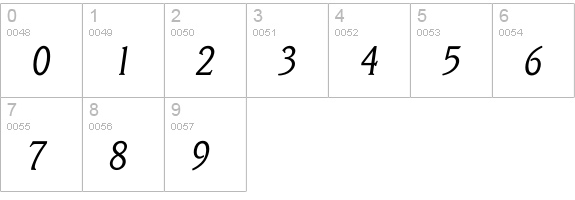
Iveracruz Light is a refined, elegant variant in the Iveracruz typeface family \xE2\x80\x94 well suited to elegant body text, refined sub-headings, and luxury branding.
Iveracruz Light is a stunning font that exudes elegance and sophistication. It is the perfect choice for those seeking a modern and clean look in their designs. With its delicate and slender letterforms, Iveracruz Light adds a touch of refinement to any project. This font combines a sleek, minimalist style with a hint of playfulness, making it versatile and suitable for a wide range of applications. Whether you're designing a logo, creating a website, or crafting a brochure, Iveracruz Light will effortlessly elevate your design to new heights. One of the best things about Iveracruz Light is that it is free. Yes, you read that right - this extraordinary font can be downloaded and used at no cost. You can easily access it at FontsMarket.com, one of the leading platforms for high-quality fonts. So, not only will you be adding a touch of sophistication to your designs, but you'll also be doing it without breaking the bank. The exceptional design of Iveracruz Light is characterized by its balanced proportions, clean lines, and graceful curves. Its legibility is outstanding, ensuring that your message will be communicated clearly and effectively. Whether used in headlines or body text, Iveracruz Light always maintains its clarity and readability. With its extensive character set, Iveracruz Light supports various languages, making it a truly global font. It also includes a range of alternate glyphs and ligatures, allowing you to customize your designs and give them a unique touch. In conclusion, Iveracruz Light is a remarkable font that offers both style and versatility. Its sleek and refined appearance, combined with its free availability, makes it a must-have for designers of all kinds. So why wait? Go ahead and download Iveracruz Light from FontsMarket.com today and unlock the potential to create stunning designs that leave a lasting impression.